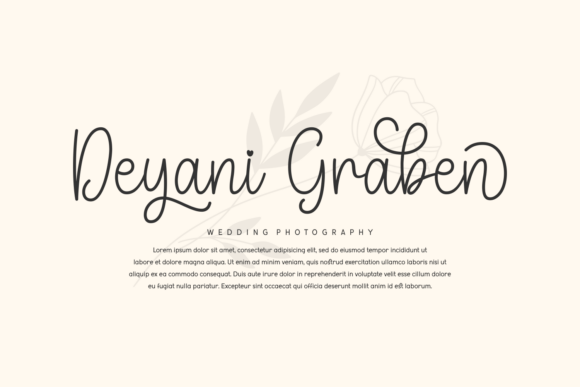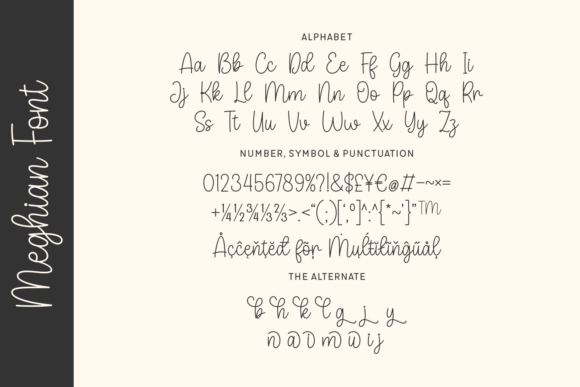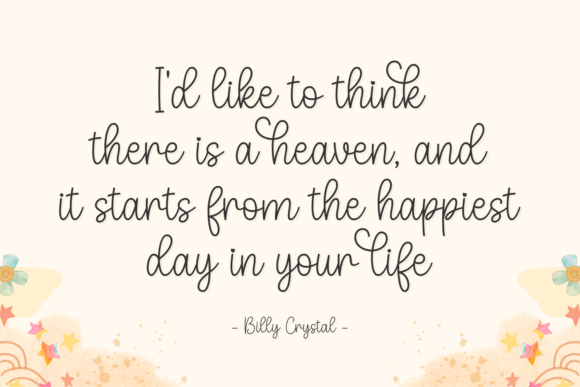
Introduction to Meghian Font
Have you ever been stuck trying to find the perfect font for a creative project, only to be overwhelmed by endless options and uninspiring designs? We’ve all been there, but what if we told you that there’s a solution that combines simplicity with a playful touch? Meet the Meghian Font, a delightful monoline script font that’s about to become your new go-to design resource.
Whether you’re working on a wedding invitation, a birthday card, or a logo for a new business, the Meghian Font is the perfect addition to give your design a cheerful vibe. With its charming swashes and subtle details, this high-quality font is sure to elevate your creative project and make it stand out from the crowd.
Key Features of Meghian Font
- Includes a set of unique, stylish characters with a transparent background, ideal for overlaying on images or videos.
- Features a large character set, including uppercase and lowercase letters, numbers, and special characters.
- Designed with a modern aesthetic, making it perfect for use in graphic design, digital art, and other creative projects.
Honest Review: Meghian Font
I recently stumbled upon the Meghian Font while searching for a design resource to add a touch of elegance to my creative project. The first thing that caught my attention was its beautiful, modern design, which features a clean and minimalist aesthetic.
- ✨ High-quality design with a modern and elegant feel
- ✨ Offers a transparent background, making it perfect for creative projects where versatility is key
- ⚠️ Limited font variations, which may not be ideal for designers who need a wide range of styles
- ⚠️ Not as versatile as other fonts when it comes to pairing with different text styles and colors
Overall, I was impressed with the Meghian Font’s design and its ability to add a touch of sophistication to my creative project. While it has some limitations, I believe it’s a great choice for designers who want a high-quality, modern font that’s easy to use and free to download.
Meghian Font is a high-quality, free download design resource perfect for any creative project. With its unique and elegant style, it’s ideal for adding a touch of sophistication to your designs.
Tips for Getting the Most Out of Meghian Font
Experiment with different font sizes, colors, and styles to create a unique look. Use it in combination with other design elements, such as shapes and graphics, to add depth and interest to your designs.
Meghian Font is perfect for a variety of design projects, including business cards, brochures, posters, and social media graphics. Its elegant style makes it ideal for formal and professional designs, while its transparent background makes it perfect for creative and playful projects.
Alternatives to Meghian Font
The Great Vibes Font is a high-quality, elegant script font suitable for creative projects that require a touch of sophistication. It’s perfect for designing wedding invitations, branding materials, or any project that needs a stylish, handwritten feel. Great Vibes Font is a great alternative to Meghian Font for designers looking for a more refined and sophisticated look.
The Alex Brush Font is a beautiful, handwritten script font ideal for designing creative projects that require a personal touch. It’s great for designing greeting cards, signage, or any project that needs a unique, handwritten feel. Alex Brush Font is a great alternative to Meghian Font for designers looking for a more elegant and sophisticated look.
The Carolyna Pro Font is a high-quality, elegant script font suitable for creative projects that require a touch of sophistication. It’s perfect for designing branding materials, wedding invitations, or any project that needs a stylish, handwritten feel. Carolyna Pro Font is a great alternative to Meghian Font for designers looking for a more refined and sophisticated look, and it’s available for free download.